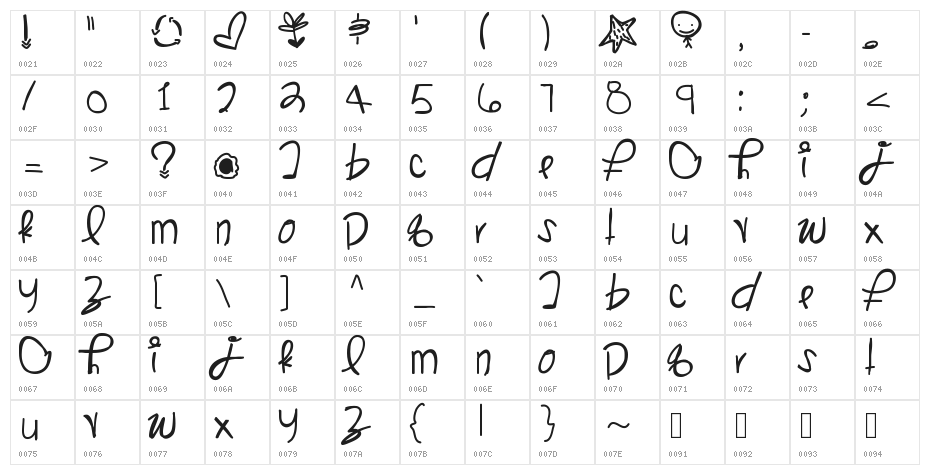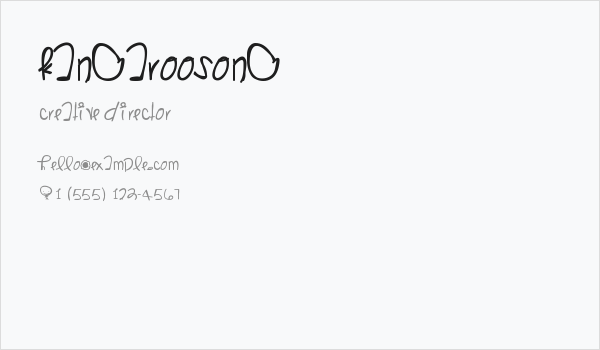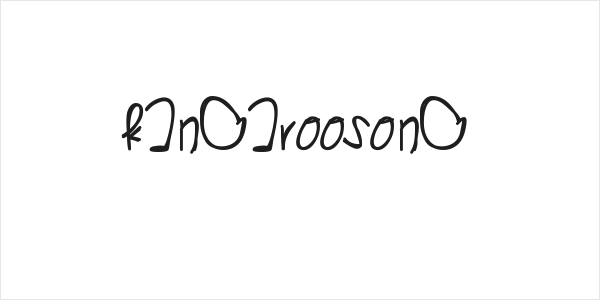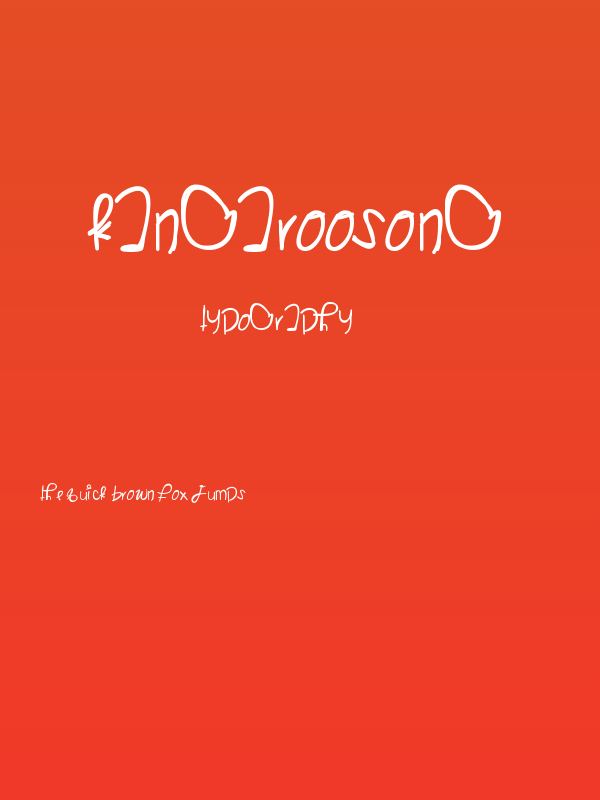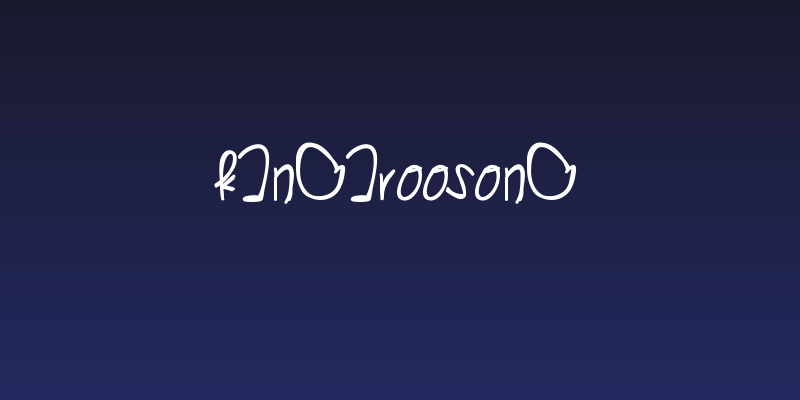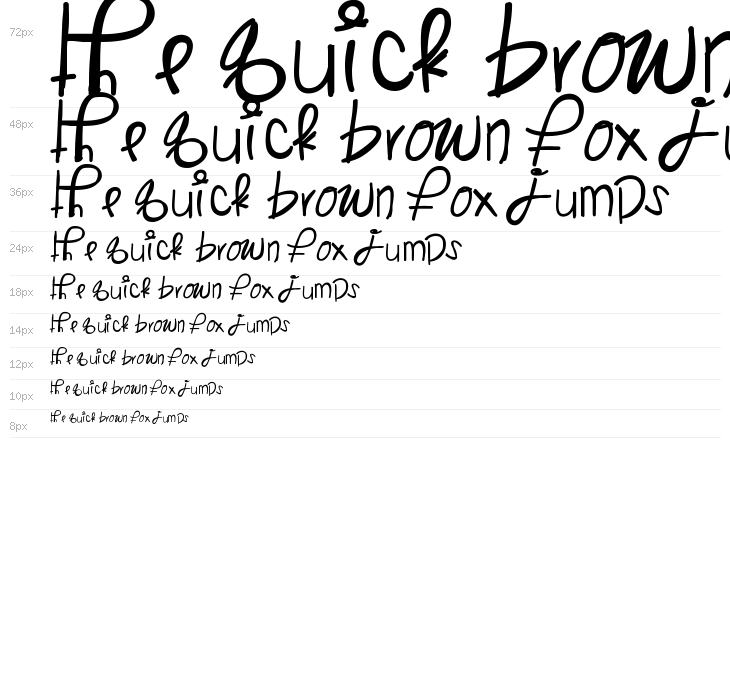
KangarooSong Font
KangarooSong Description
This font features a playful and whimsical handwritten style, characterized by its loose and flowing letterforms. The strokes are bold and dynamic, with a casual, informal appearance that suggests a sense of fun and creativity. The uppercase and lowercase letters maintain a consistent style, with some letters exhibiting unique flourishes and loops that add to the font's charm. Numbers and special characters are equally expressive, with a variety of shapes and embellishments that enhance the overall aesthetic. The font's design is well-suited for projects that require a personal touch or a sense of spontaneity.
Proposed ProjectsIdeal for greeting cards, children's books, playful branding, and creative posters.